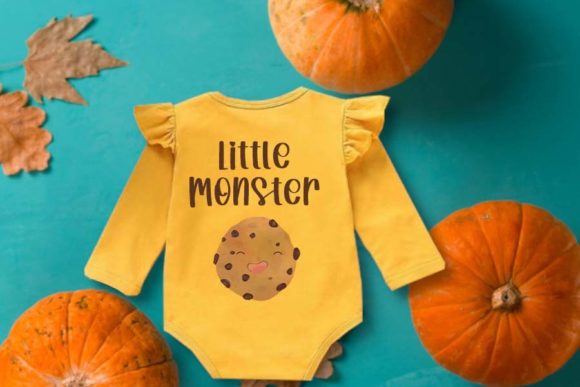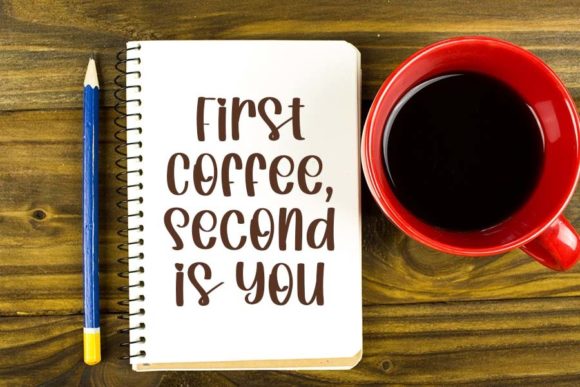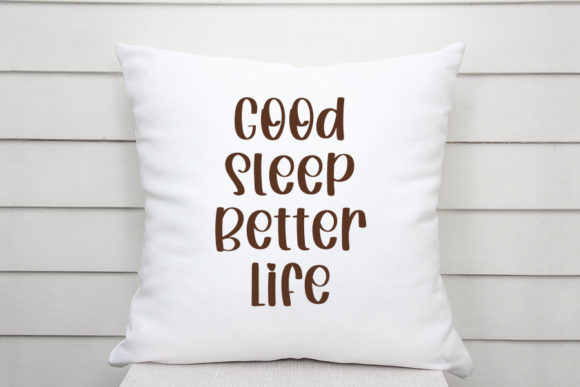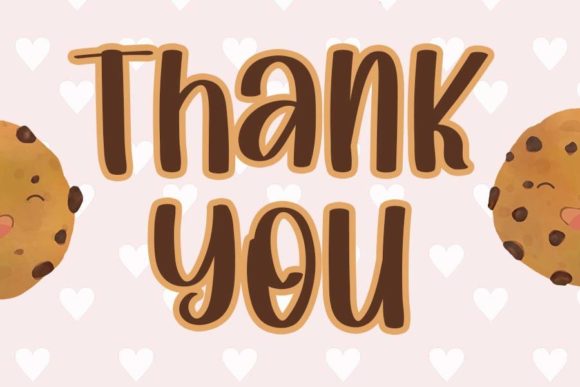
Introduction to Monster Cookie Font
Have you ever found yourself staring at a blank canvas, searching for the perfect font to bring your creative project to life? The blank page stares back, taunting you with its emptiness. But then, it happens – a spark of inspiration hits, and you start envisioning a world of whimsy and wonder. For designers, this moment is pure magic, and the right font can be the key to unlocking it.
That’s where the Monster Cookie Font comes in – a beautiful and cool display font that’s sure to bring a smile to your face. Whether you’re working on a cartoon, children’s game, or any other project that requires a touch of loveliness, this font is an amazing choice. With its high-quality design and transparent background, it’s the perfect design resource for any creative endeavor.
Key Features of Monster Cookie Font
- High-quality design resource for creative projects, suitable for various applications including logos, branding, and graphics.
- Comes with a transparent background, making it easy to use in different design scenarios.
- Includes a wide range of glyphs, making it a versatile font for various languages and scripts.
- Designed to be highly legible and readable, even at small font sizes.
Honest Review: Monster Cookie Font
I recently stumbled upon the Monster Cookie Font while searching for a fun and quirky design resource. At first glance, I was immediately drawn to its playful and modern aesthetic. The font is a great choice for any creative project that needs a bit of personality.
- High quality design that’s perfect for digital and print projects
- Transparent background makes it easy to use in any design setting
- Available in various font styles and weights for added versatility
- ✨ Great for adding a pop of personality to your designs
However, I do have a few minor complaints:
- ⚠️ Some users may find the font a bit too playful or over-the-top for certain design projects
- ⚠️ Limited customization options, which may not be ideal for designers who like to fine-tune their fonts
Overall, I’m really impressed with the Monster Cookie Font. It’s a great addition to any design library and is perfect for designers who want to add a bit of whimsy to their projects. With its high-quality design and transparent background, it’s a must-have for any creative project.
The Monster Cookie Font is a high-quality design resource that can elevate your creative project. With its unique and playful style, this font is perfect for adding a touch of whimsy to your designs.
To get the most out of the Monster Cookie Font, try pairing it with a transparent background to create a fun and playful design. You can also experiment with different font sizes and styles to add depth and interest to your designs.
The Monster Cookie Font is perfect for a variety of creative projects, including:
Children’s book illustrations
Party invitations
Food labels
Advertising graphics
Is the Monster Cookie Font suitable for digital design projects?
Yes, the Monster Cookie Font is an excellent choice for digital design projects. Its high-quality design and transparent background make it ideal for use in graphic design, digital art, and web design applications. You can use it for creating logos, icons, typography, and other design elements that require a unique and creative touch.